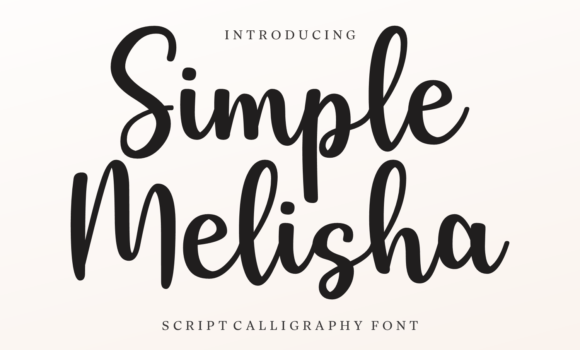
Simple Melisha Font – Free Download Introduction to Simple Melisha Font Simple Melisha is an elegant script font with a contemporary atmosphere and impeccable form, inspired by timeless classic calligraphy. 📸 Preview Gallery 3 images 📌 Product Name Simple Melisha